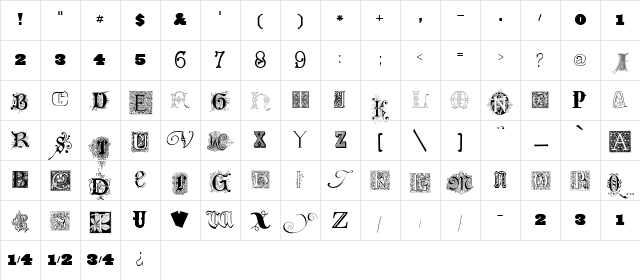
Complete Kidnapped At Old Times Free 3 Regular glyph index. Displaying only characters natively supported by Kidnapped At Old Times Free 3 Regular font.
Kidnapped At Old Times Free 3 is a composed and adaptable typeface that performs quietly and consistently across a wide range of design contexts.